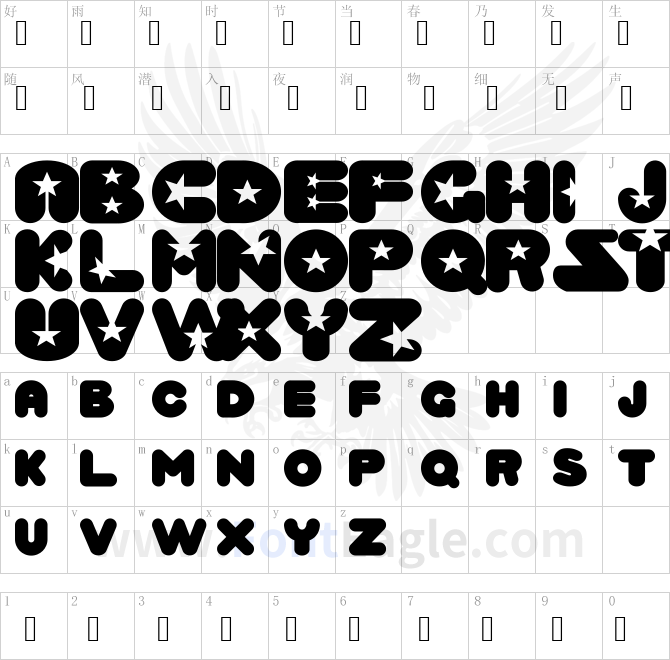
- Font name:Crystal Universe Regular
Crystal Universe is a font that replicates the font used for the logo of the animated television show Steven Universe ™.
Steven Universe ™ was created by Rebecca Sugar.